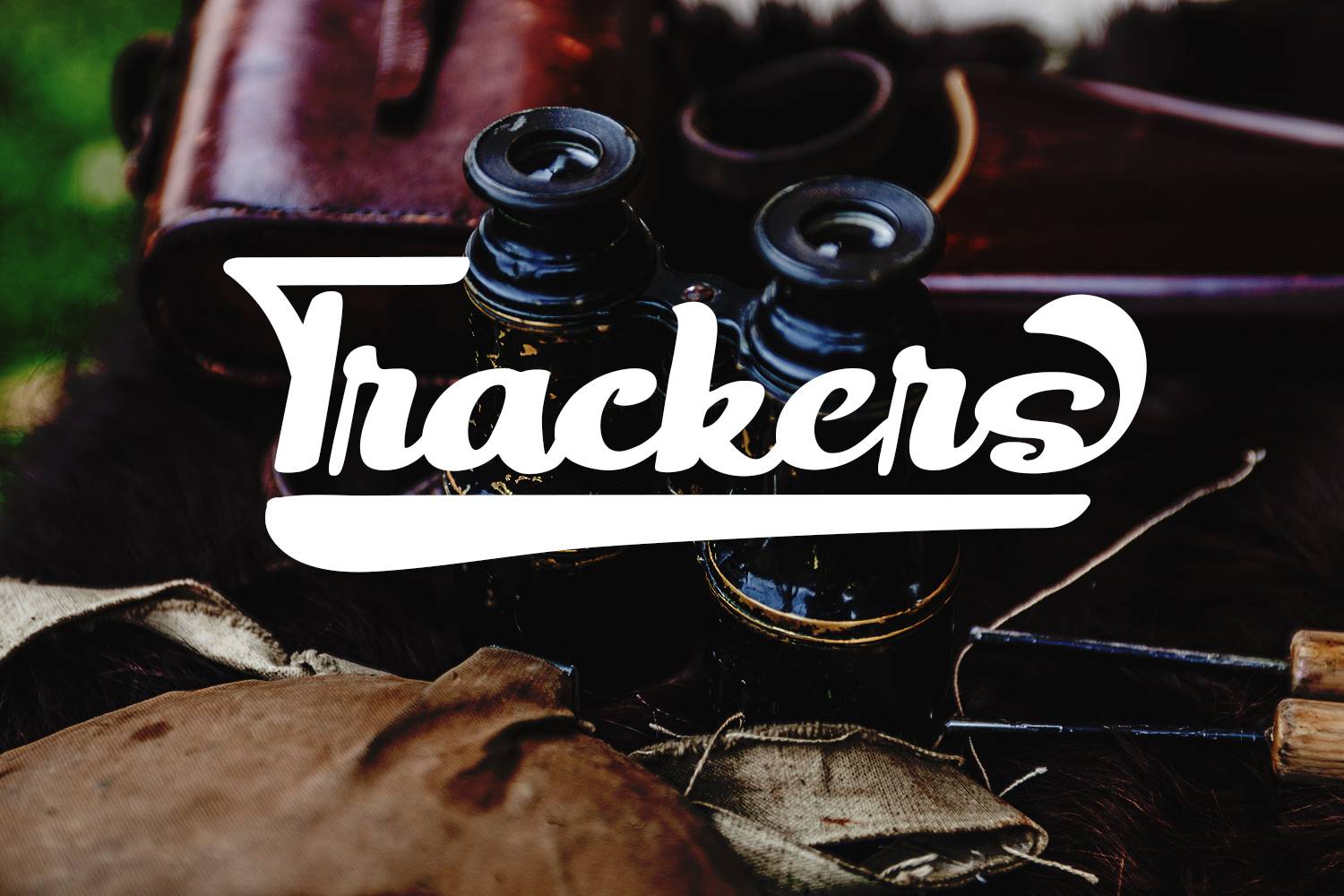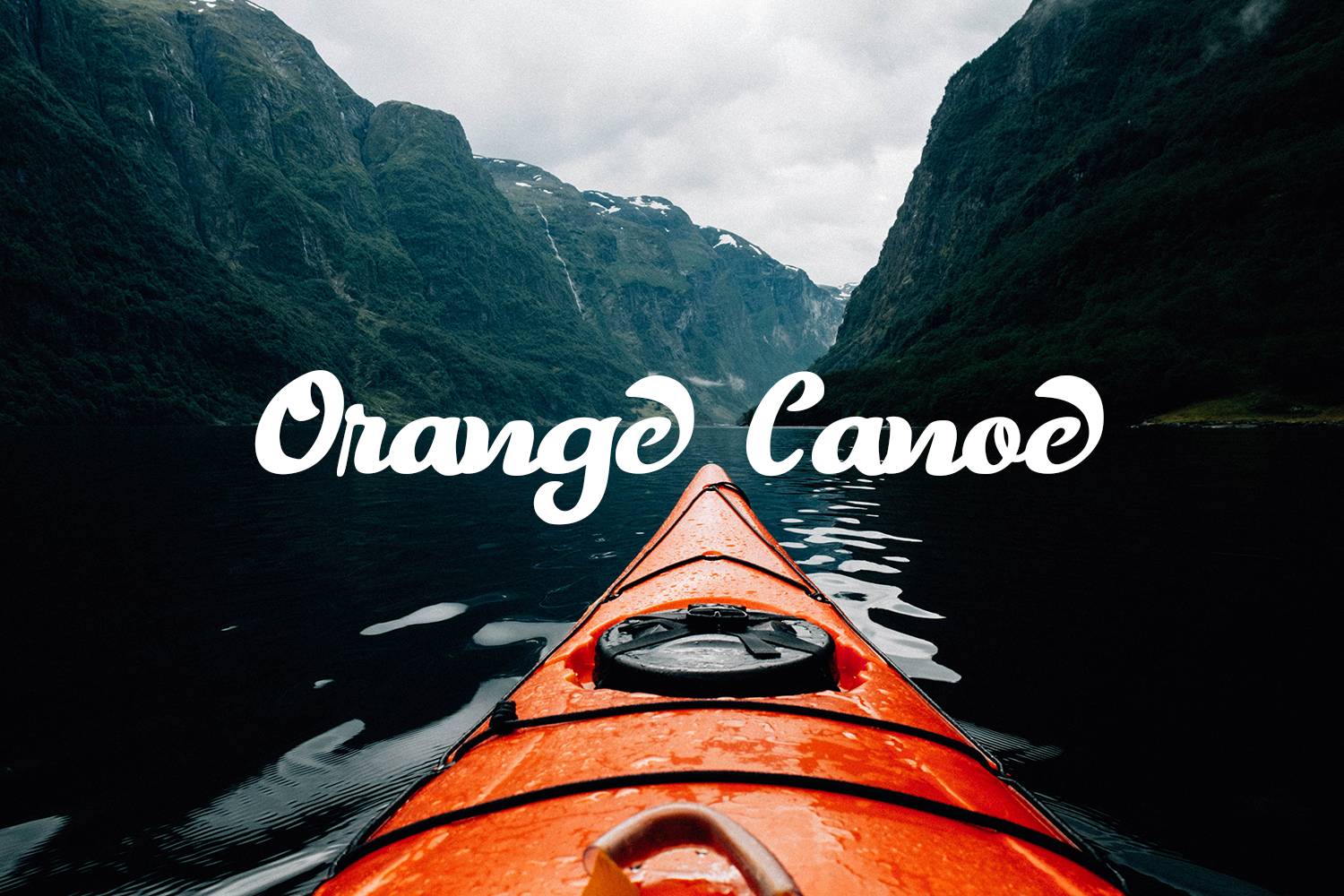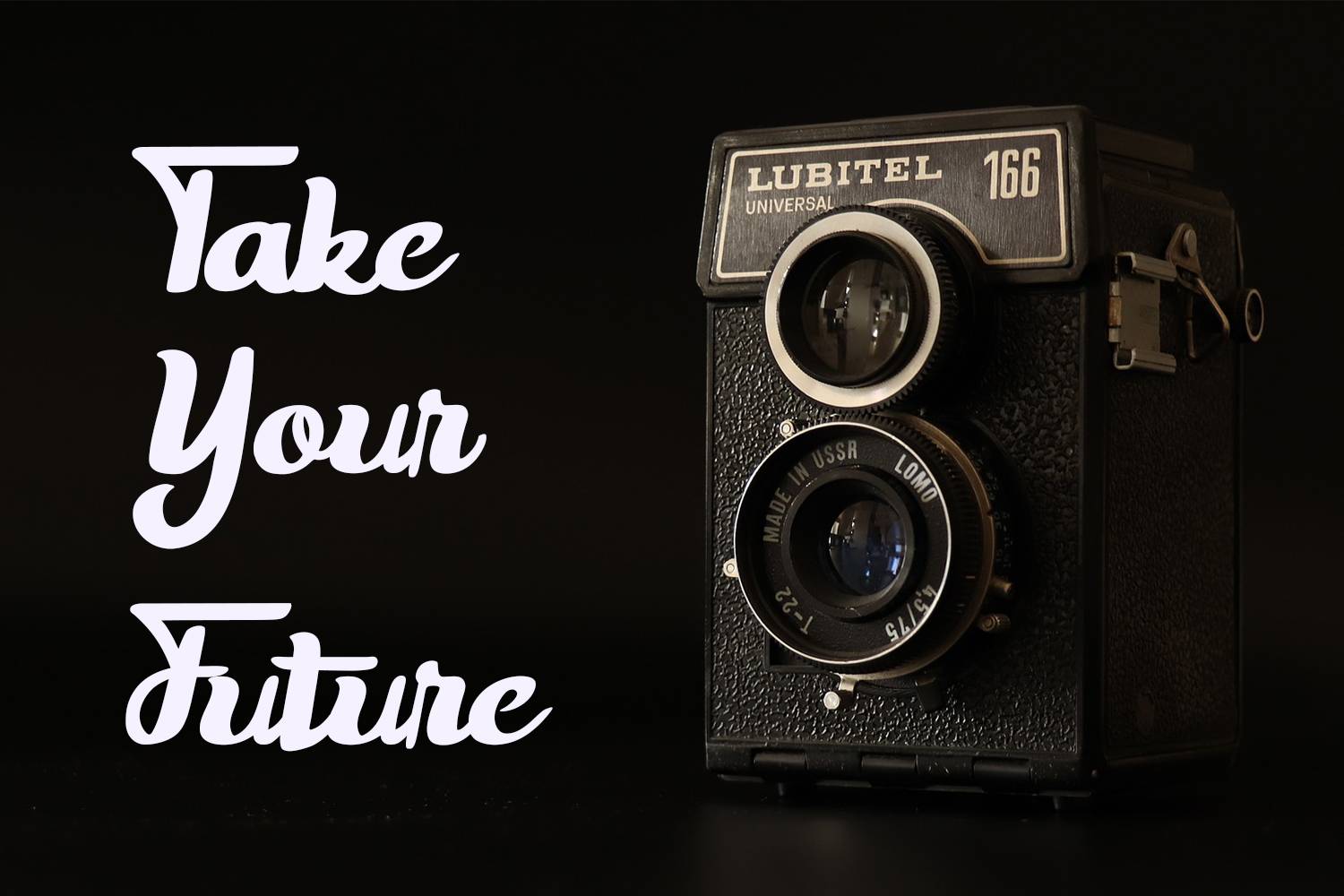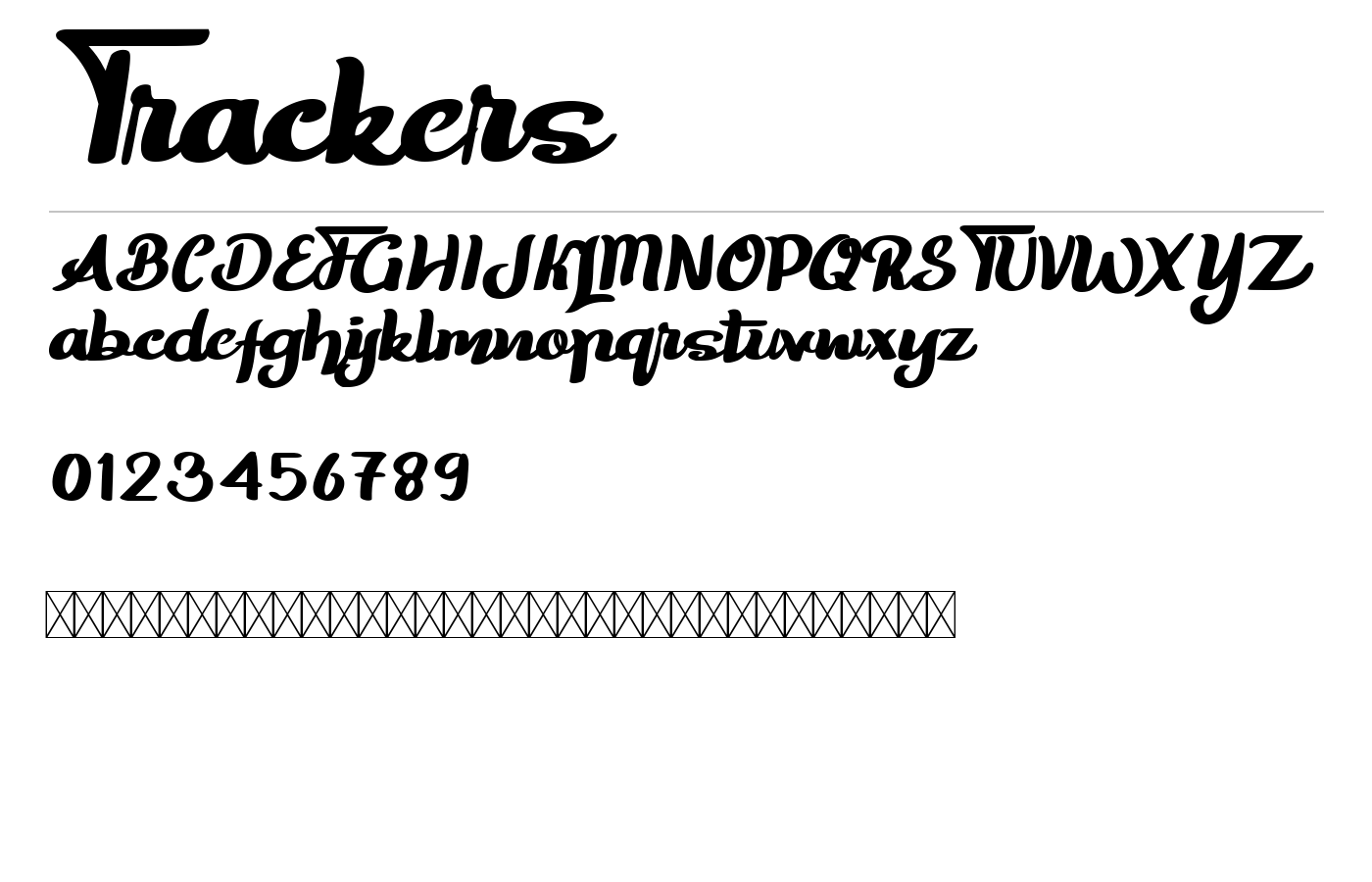
Trackers is a bold, script-style font with a lively and elegant personality, featuring smooth, connected letterforms and a touch of vintage charm. Its slightly condensed width, moderate contrast, and flowing curves make it perfect for creating eye-catching headlines, logos, and packaging that need a stylish yet approachable feel. This font works wonderfully in fashion, branding, and editorial design where a blend of sophistication and warmth is desired.
Trackers Font
About Trackers Font